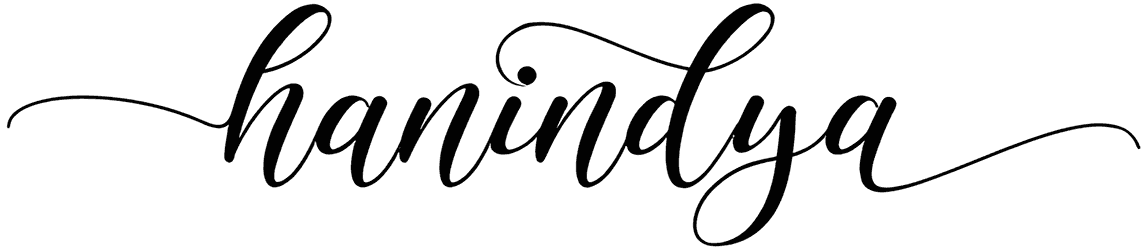
Hanindya Font
The ideal calligraphy script font to choose if you want to appear professional to your target audience is Hanindya. Despite its illegible characters, it has the ability to add a regal air to your digital works.